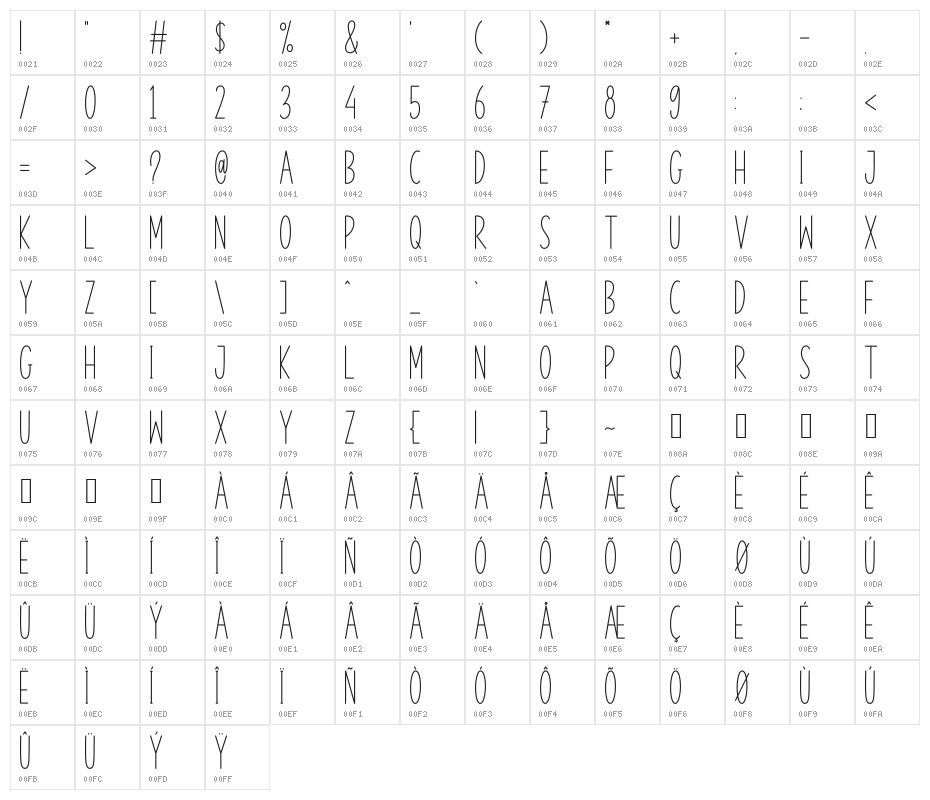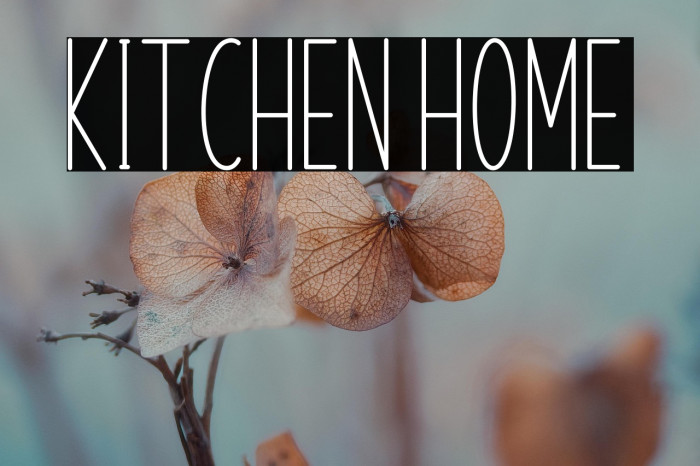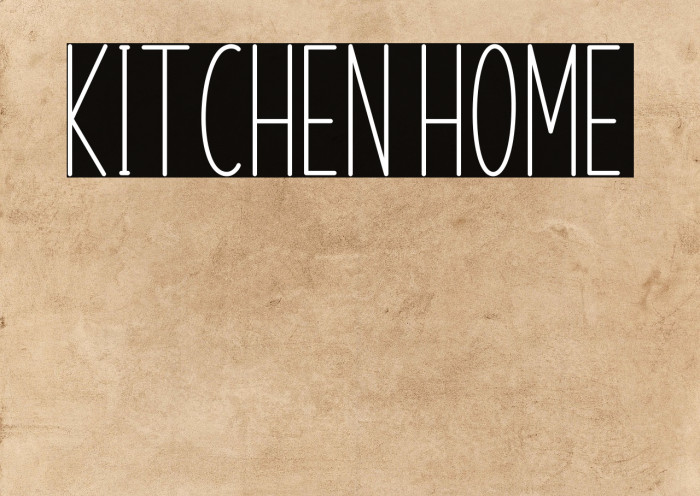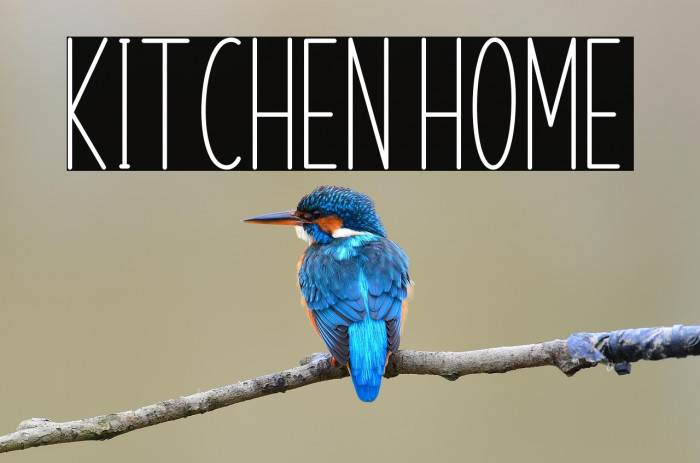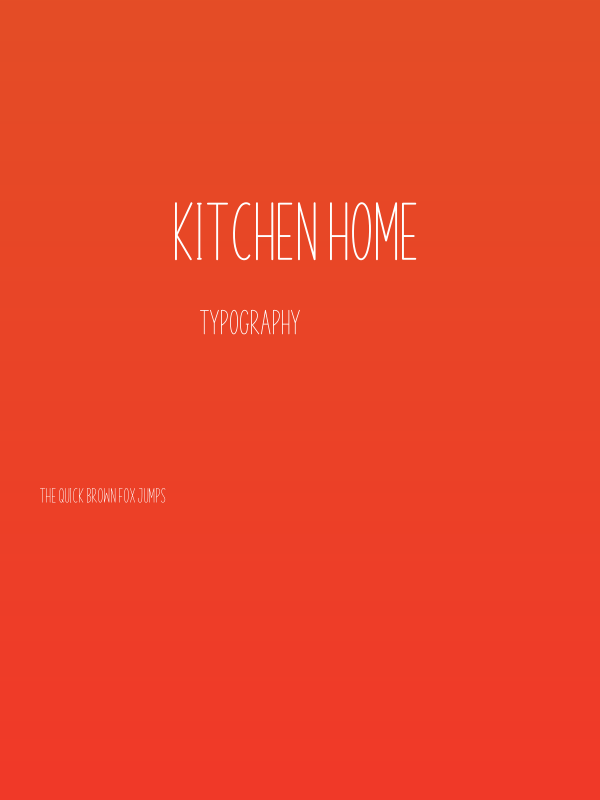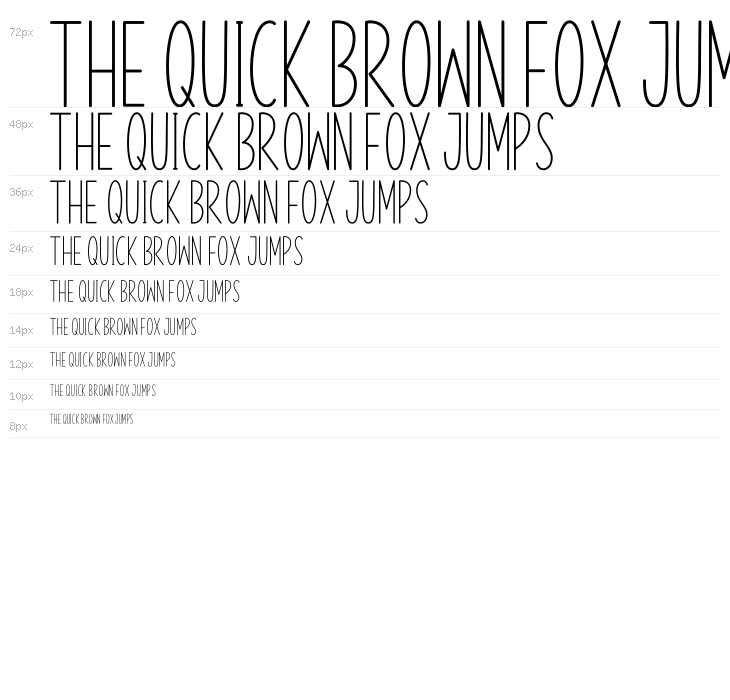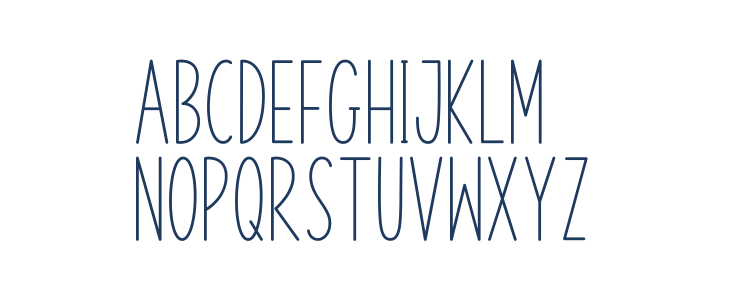
Kitchen Home Font
Kitchen Home Description
This font features a tall and narrow design with clean, straight lines and minimal curves, giving it a modern and elegant appearance. The uppercase and lowercase letters maintain a consistent height, contributing to a uniform look. The numerals are similarly styled, with a sleek and elongated form. Special characters are included, matching the overall aesthetic with their thin and precise lines. The font's simplicity and clarity make it highly legible, even at smaller sizes, while its distinctive style adds a touch of sophistication.
| Width | Condensed |
| Use Case | Headlines, Body text, Logos |
| Proposed Projects | Ideal for projects that require a modern and sophisticated touch, such as branding, packaging, editorial design, and digital interfaces. |